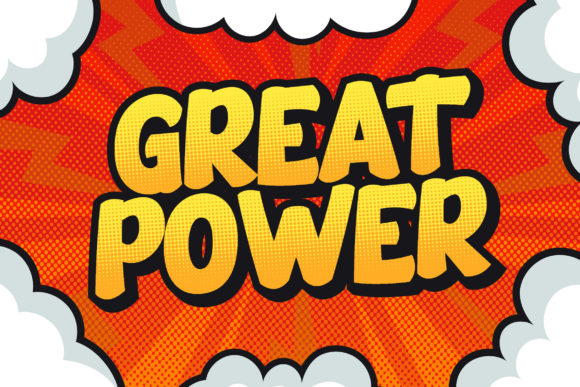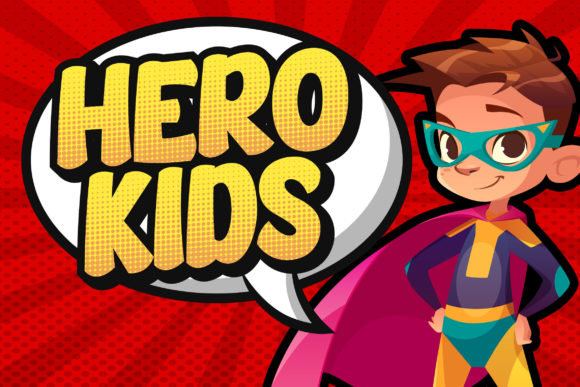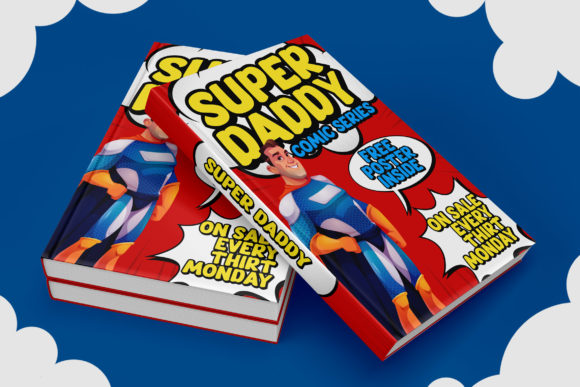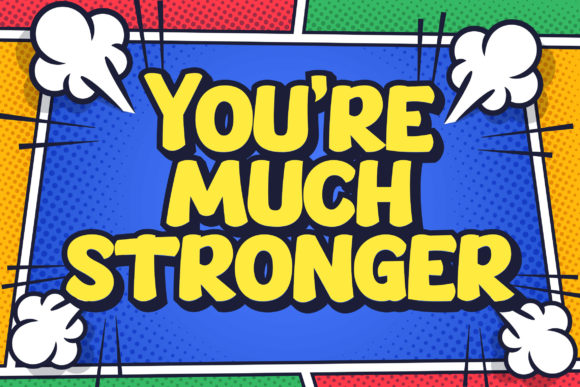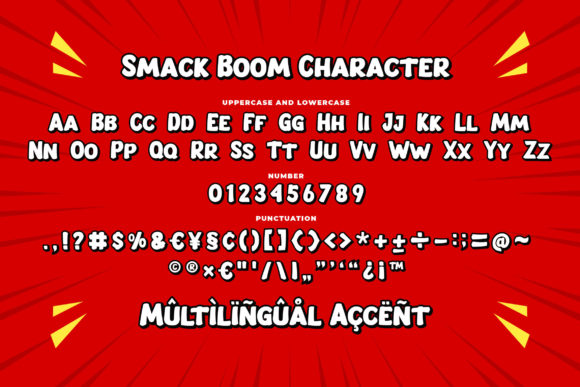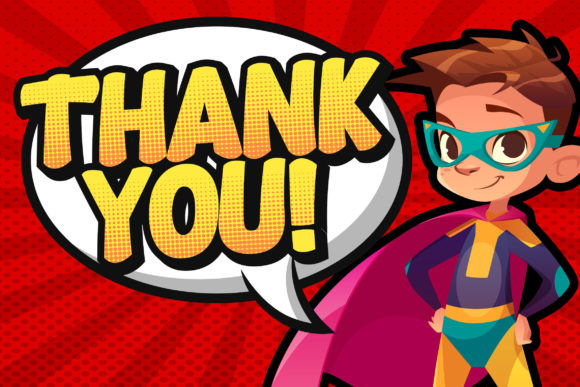
Introduction to Smack Boom Font
Have you ever been working on a creative project, pouring your heart and soul into it, only to feel like something’s missing? You know, that one spark that takes your design from ordinary to extraordinary? For designers, finding that perfect design resource can be a game-changer. It’s what sets your work apart and makes it truly unforgettable.
That’s where the Smack Boom Font comes in – a display font that’s guaranteed to bring a dash of playfulness and whimsy to your designs. Inspired by the classic cartoon typography, this font is perfect for creating eye-catching book covers, children’s books, comics, posters, packaging, and more. With its transparent background and high-quality design, it’s a valuable addition to any designer’s toolkit.
Key Features of Smack Boom Font
- High-quality font design with a unique, playful style, perfect for creative projects.
- Comes with a transparent background, allowing for seamless integration into any design.
- Includes a range of sizes and resolutions, from 72 dpi to 300 dpi, for versatile use in different applications.
- Designed to be highly legible, making it an ideal choice for digital and print designs.
- Smack Boom Font is a popular design resource among graphic designers, artists, and creatives.
- Supports multiple languages, ensuring its usability in various cultural and linguistic contexts.
Honest Review: Smack Boom Font
I recently had the chance to work with the Smack Boom Font in a creative project, and I must say it’s been a game-changer. This design resource has been a great addition to my toolkit, offering a wide range of styles and versatility.
- ✨ High-quality design: The Smack Boom Font is crisp and clean, making it perfect for various design applications.
- ✨ Transparent background: This feature allows for seamless integration with other design elements, giving me more creative freedom.
- ⚠️ Limited customization options: While the font itself is great, I wish there were more customization options available to make it truly unique.
- ⚠️ Not suitable for all projects: The Smack Boom Font may not be the best choice for projects that require a more formal or traditional font style.
Overall, I’m impressed with the Smack Boom Font. It’s a great addition to any designer’s toolkit, and its high quality and versatility make it a valuable resource for any creative project.
The Smack Boom Font is a unique and creative design resource that can elevate your project with its high-quality and free download. With its transparent background, it’s perfect for adding a touch of sophistication to your design.
Tips for Getting the Most Out of Smack Boom Font
To get the most out of the Smack Boom Font, use it in combination with other design elements such as images and graphics. Experiment with different font sizes, colors, and styles to create a unique look.
The Smack Boom Font is perfect for creative projects such as posters, flyers, and social media graphics. It’s also great for use in branding and marketing materials, such as business cards and brochures.
Alternatives to Smack Boom Font
Comic Sans MS is a popular sans-serif font that is ideal for creating a playful and approachable atmosphere in a design project. It’s a great choice for posters, flyers, and social media graphics that require a friendly tone.